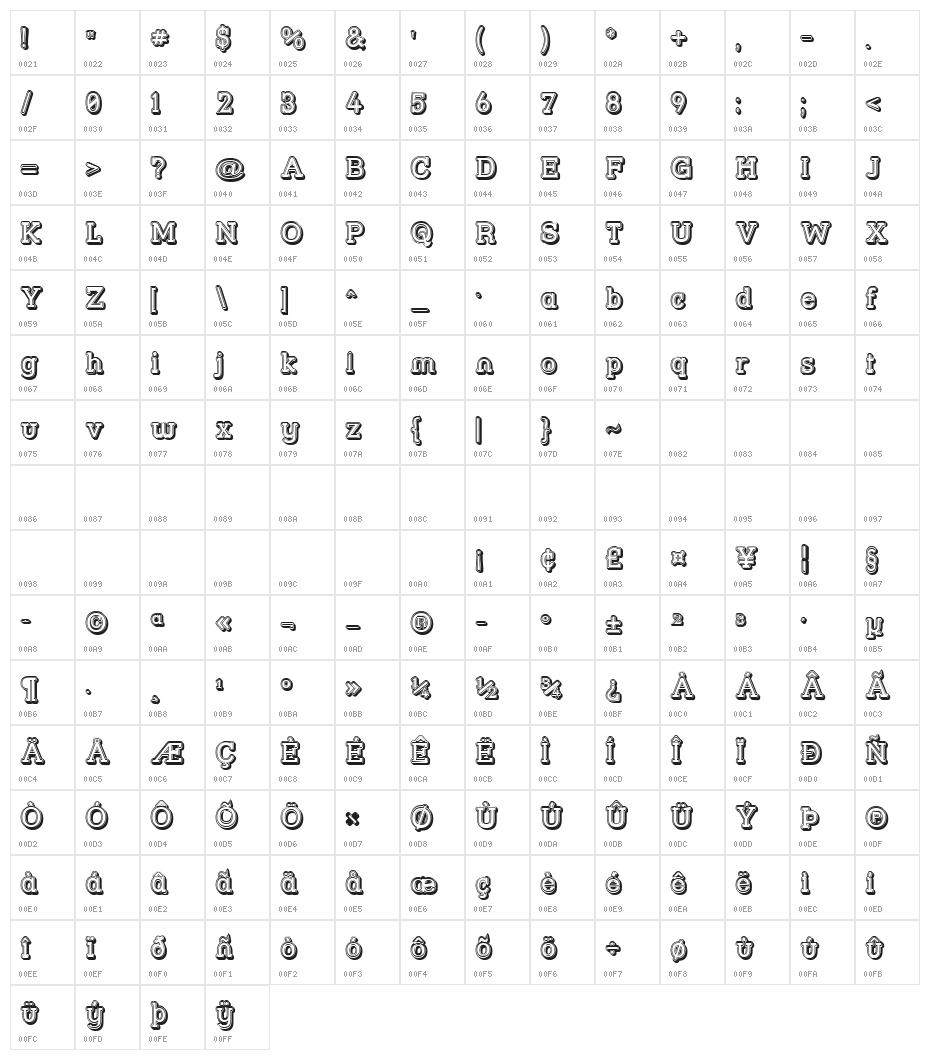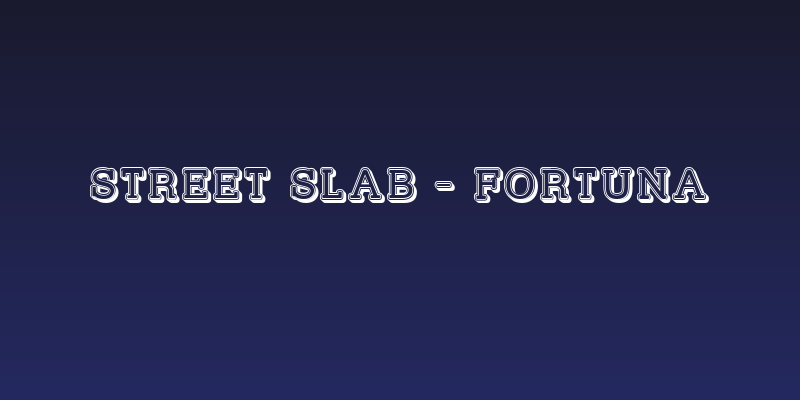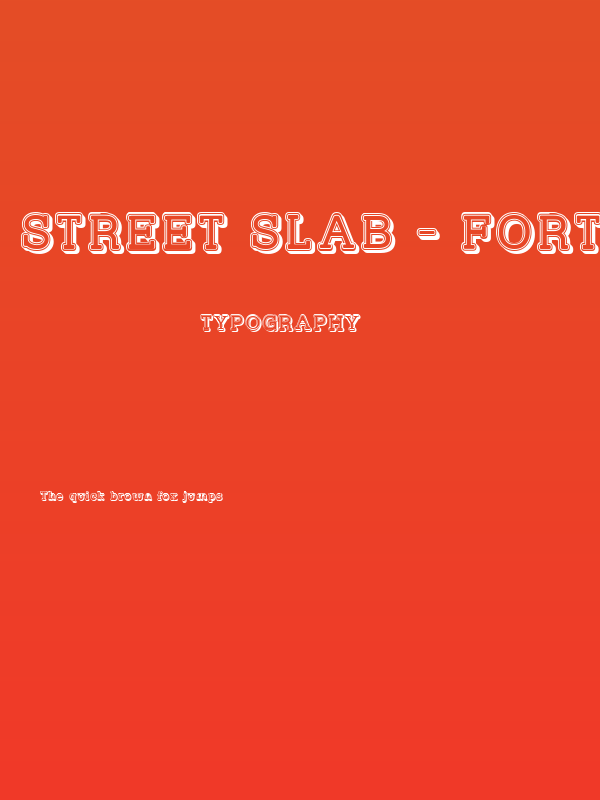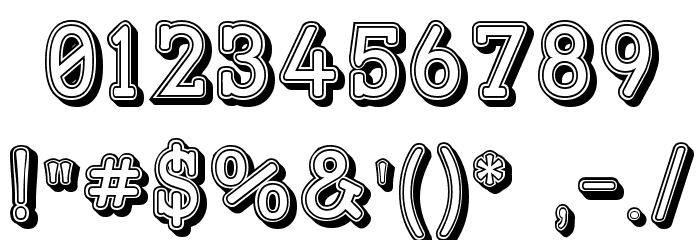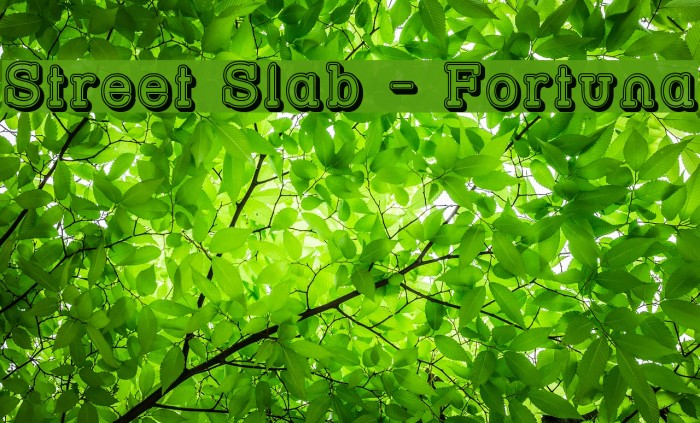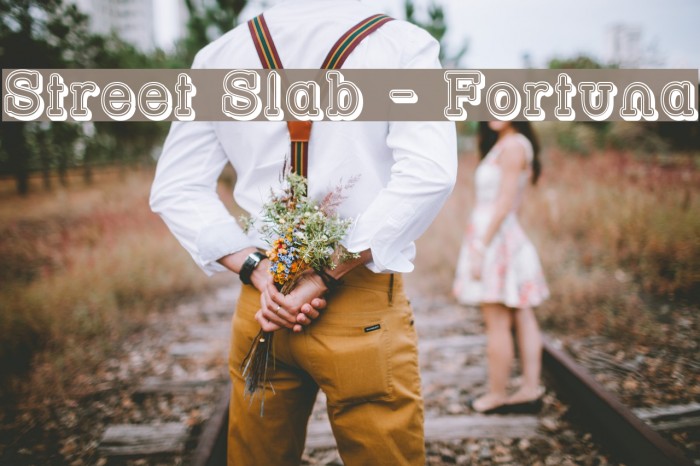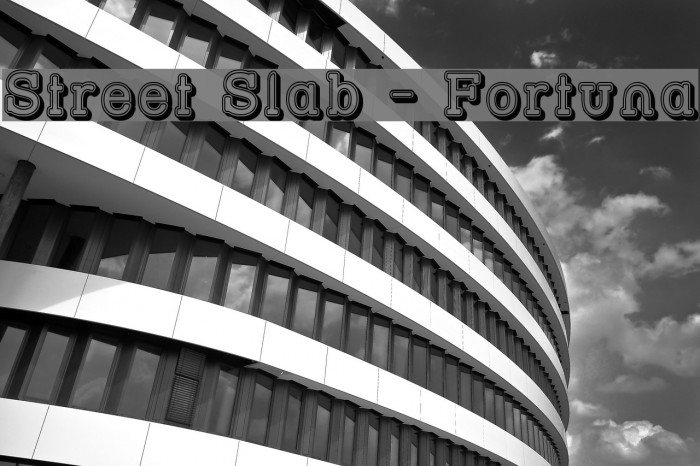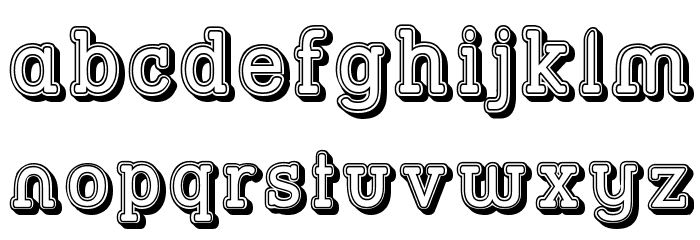
Street Slab - Fortuna Font
Street Slab - Fortuna Description
This font features a bold, three-dimensional slab serif style with a strong, impactful presence. The letters are characterized by thick, block-like serifs and a shadow effect that gives them a layered, standout appearance. The uppercase and lowercase letters maintain a consistent width, providing a uniform look across the alphabet. The numerals and special characters follow the same design principles, ensuring a cohesive visual style. This font's boldness and unique shadowing make it ideal for attention-grabbing designs.
| Proposed Projects | Ideal for posters, headlines, logos, and branding materials that require a strong visual impact. |